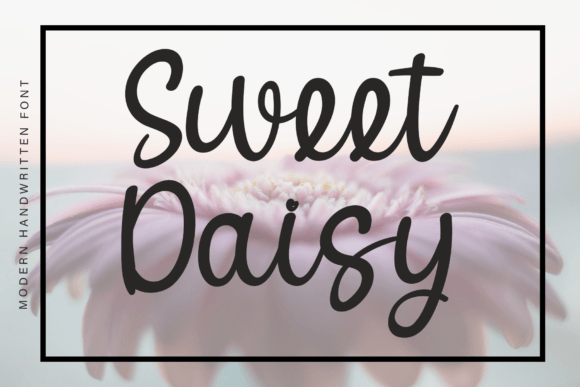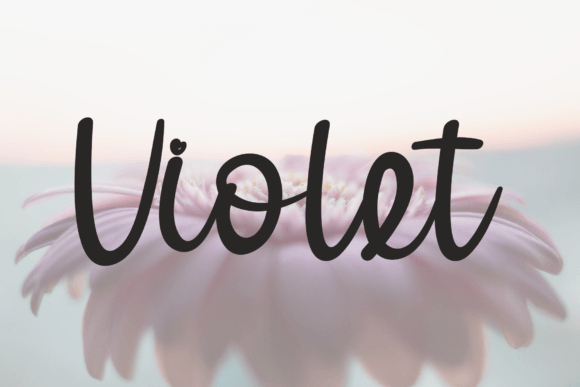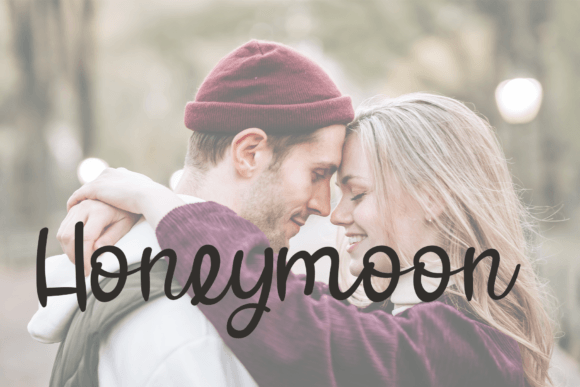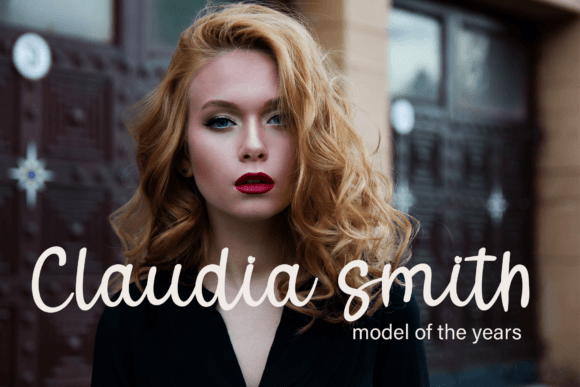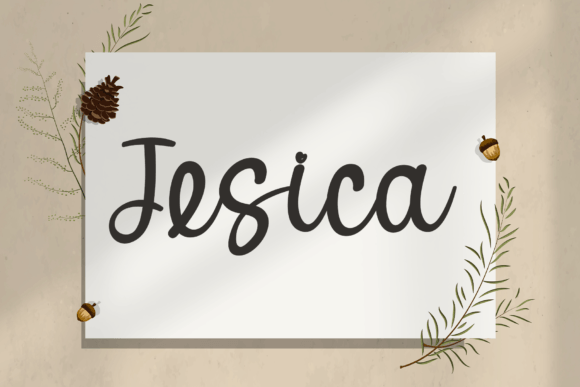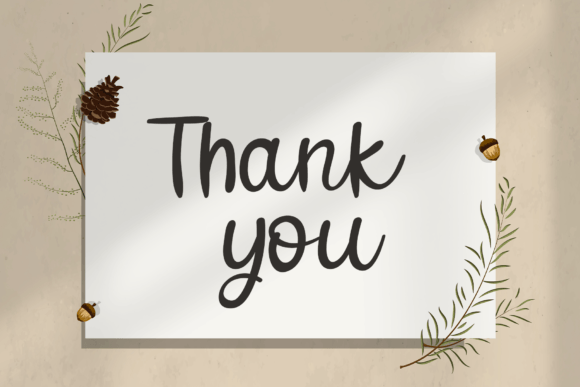
Sweet Daisy Font
About Sweet Daisy Font
Sweet Daisy is an exquisite and endearing handwritten script font that possesses a captivating charm. With its gentle and flowing strokes, this font can elevate a wide range of design ideas, infusing them with a sense of joy and romance that is truly remarkable. The allure of Sweet Daisy lies in its ability to bring a unique blend of warmth and sophistication to your creative endeavors. Its graceful handwritten style lends a personal and intimate feel to any text while maintaining a polished and professional appearance.
Versatile Applications
This versatile font has the power to enhance various projects, from delicate invitations and heartfelt greeting cards to eye-catching banners and distinctive logos. Imagine using Sweet Daisy to craft wedding invitations that exude love and elegance. The font’s graceful curves and soft lines create a harmonious visual experience, setting the tone for a beautiful celebration of love. Your guests will be drawn to the inviting and romantic atmosphere this font effortlessly conveys.
Branding and Logos
In the realm of branding and logo design, Sweet Daisy can transform a simple name or message into a memorable and visually appealing representation of your business or personal brand. Its unique character and captivating aesthetics will leave a lasting impression on your audience, ensuring that your identity stands out in a crowded market.
Digital and Print Projects
For digital and print projects alike, Sweet Daisy brings a sense of timelessness and authenticity. Its handcrafted appearance evokes nostalgia and sentimentality, making it perfect for projects that require a touch of classic charm. Whether you’re designing packaging, posters, or social media graphics, this font will infuse your creations with sweetness and sophistication.
In conclusion, Sweet Daisy is not just a font; it’s a design companion that breathes life into your ideas, adding enchantment and romance to everything it graces. Its versatility and timeless appeal make it an invaluable tool for designers looking to make a lasting impression. So, why wait? Let Sweet Daisy be the enchanting muse for your next design adventure, where creativity knows no bounds, and beauty knows no limits.